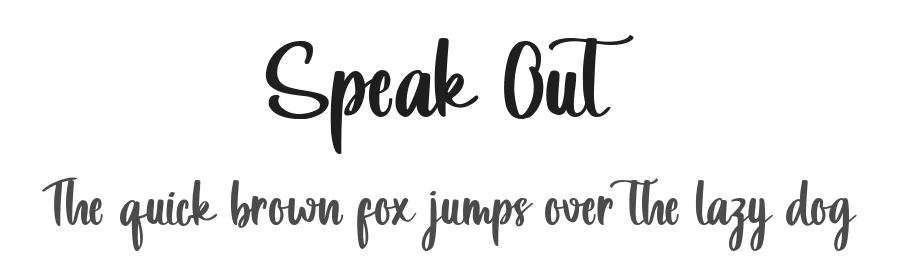
About Maple Memories Font
| Designer | Fadli Ramadhan Iskandar |
Maple Memories ships with 2 OpenType features you can switch on in apps that support them (Illustrator, InDesign, Affinity, Figma, CSS font-feature-settings).
Maple Memories supports 217 languages.
Maple Memories Font is a script font that shines as a display or heading face. Pair it with a clean sans-serif or serif font for body text β the contrast creates a clear hierarchy while the two styles stay balanced and easy to read.